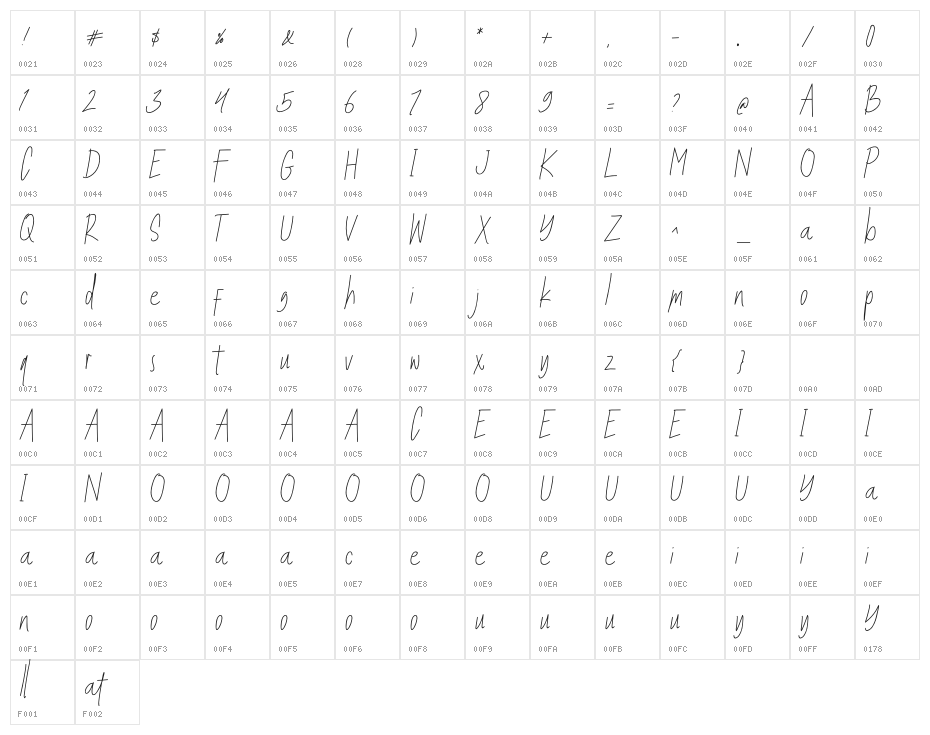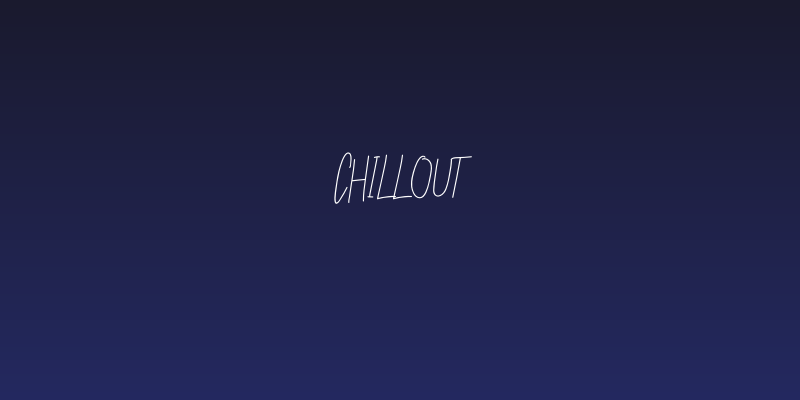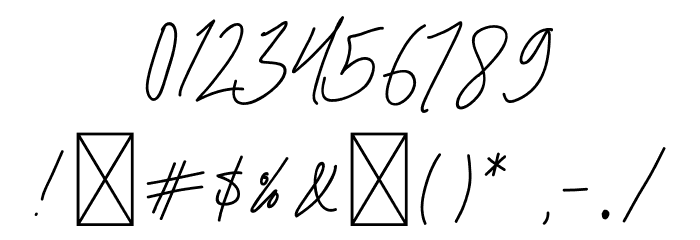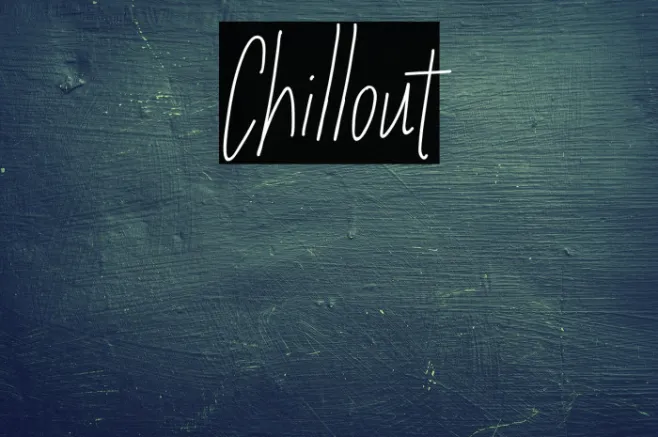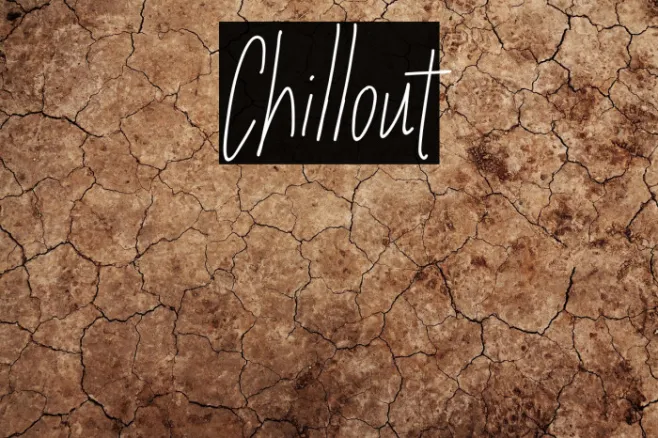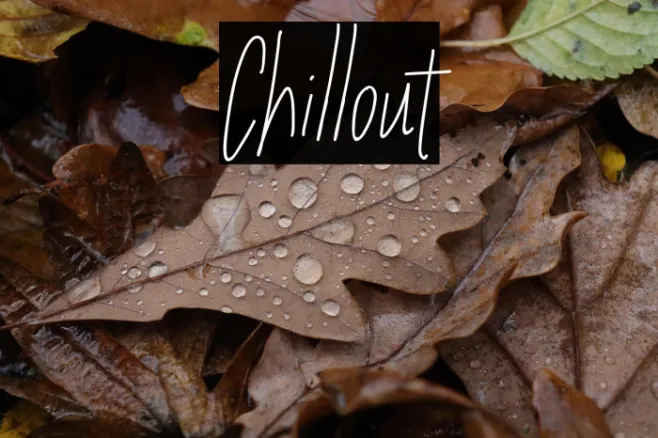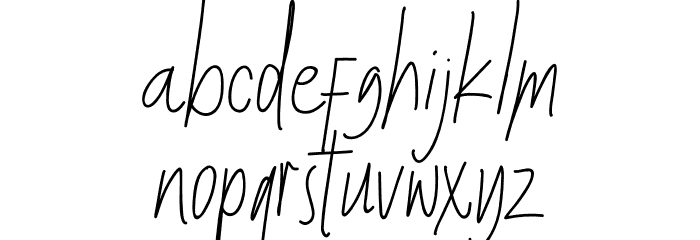
Chillout Font
Chillout Description
This font features a casual, handwritten style with a playful and relaxed appearance. The letters are slightly slanted, giving it a dynamic and informal feel. The strokes are thin and consistent, contributing to a light and airy aesthetic. The uppercase and lowercase letters maintain a cohesive look, while the numbers and special characters complement the overall style. This font's organic flow and personal touch make it ideal for projects that require a humanistic and approachable vibe.